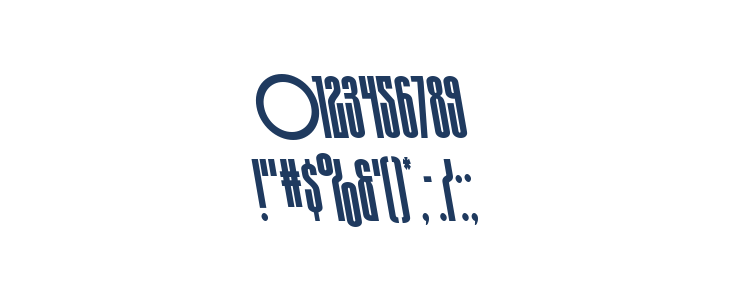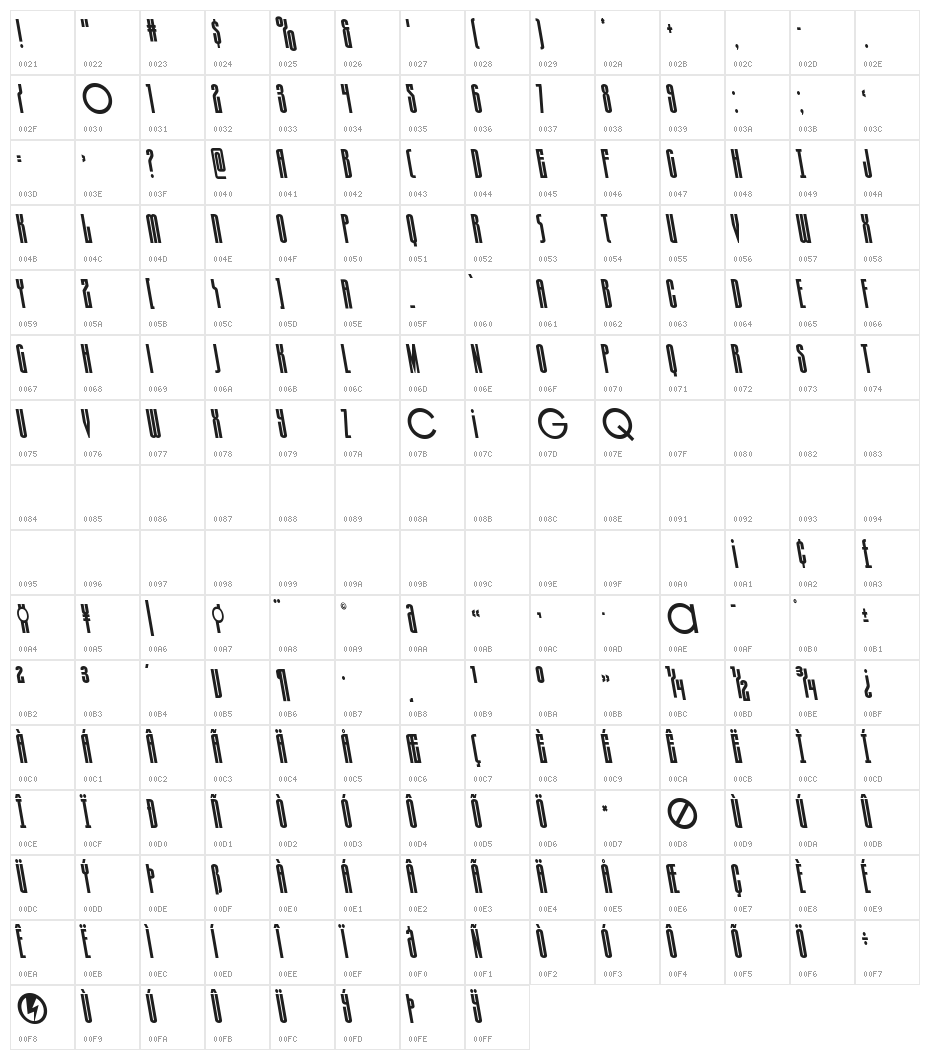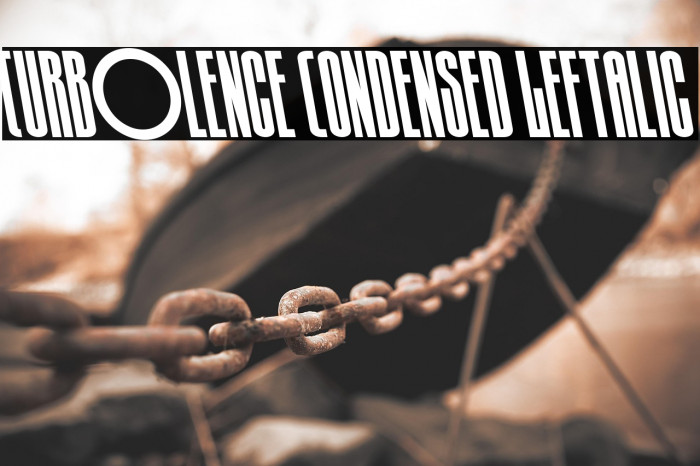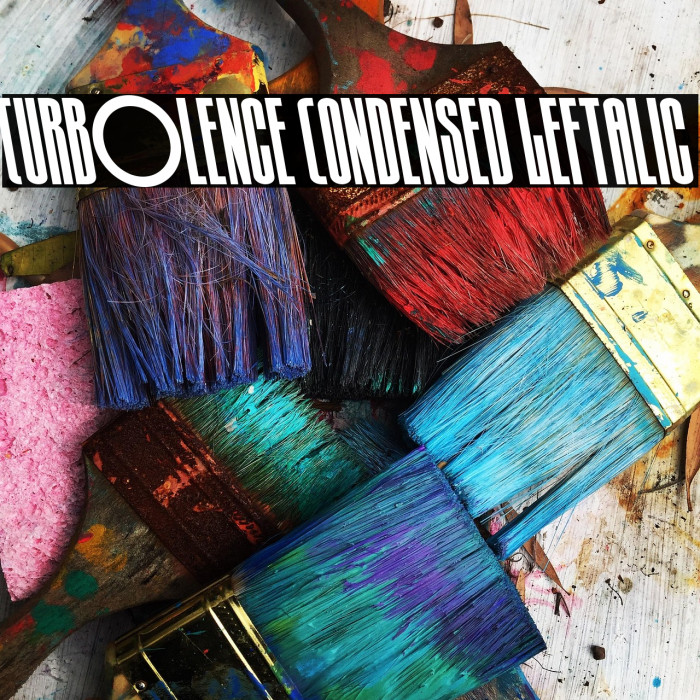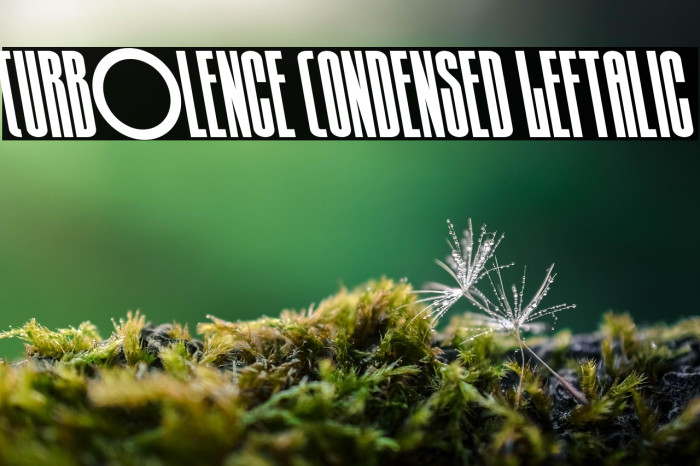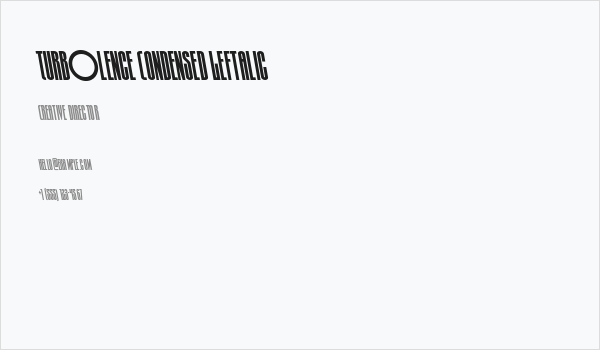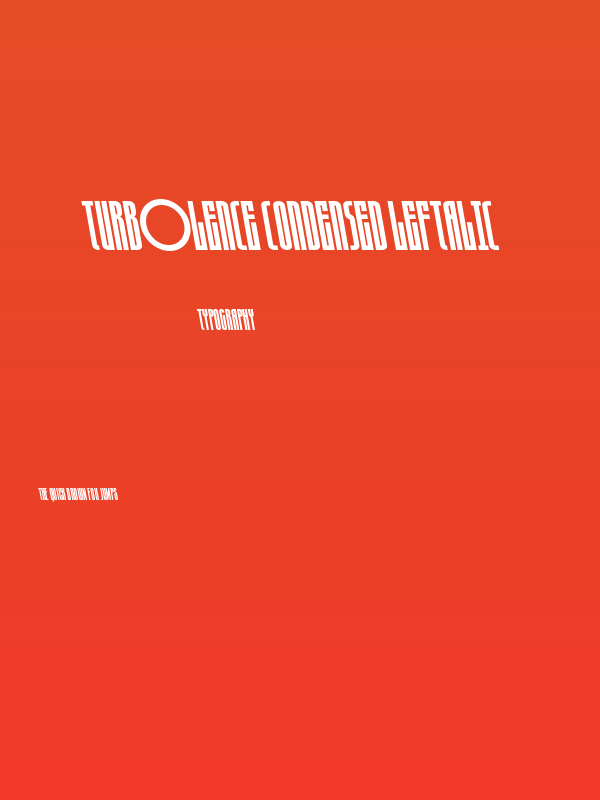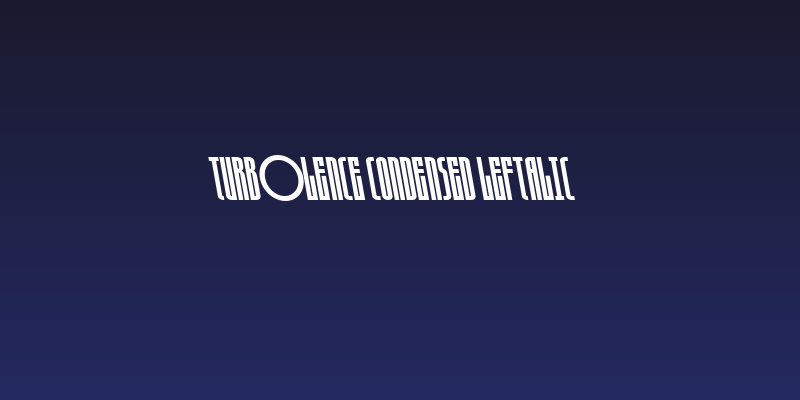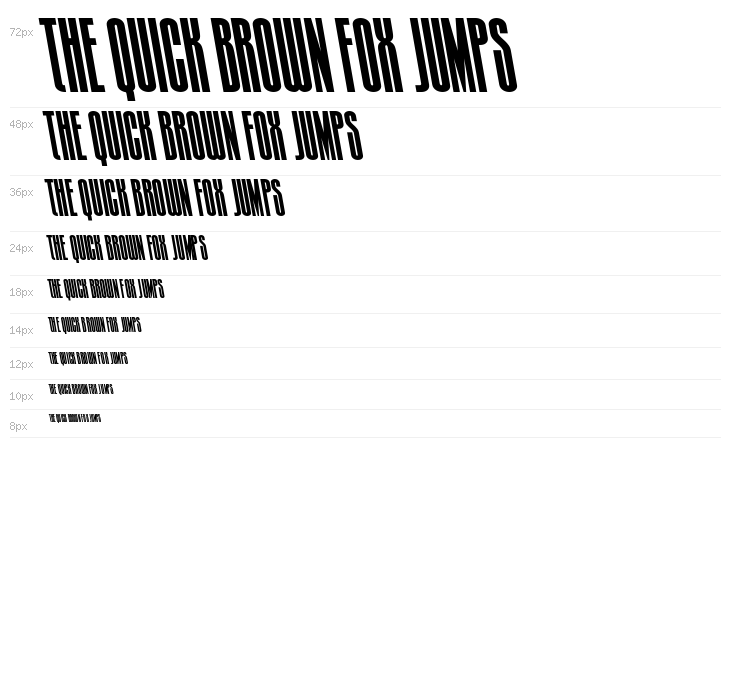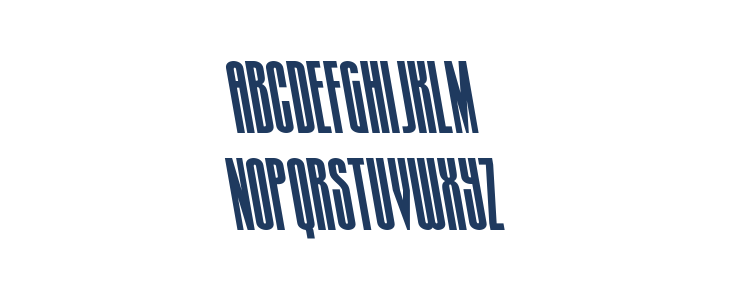
Turb0lence Condensed Leftalic Font
Turb0lence Condensed Leftalic Description
This font features a bold and condensed style with a distinctive leftward slant, giving it a dynamic and energetic appearance. The characters are tightly spaced, enhancing its compact and impactful look. The uppercase and lowercase letters maintain a consistent height, contributing to a uniform and cohesive design. The numerals and special characters follow the same stylistic approach, ensuring a seamless integration across different uses. The font's high contrast in stroke thickness adds to its striking visual appeal, making it suitable for attention-grabbing headlines and titles.